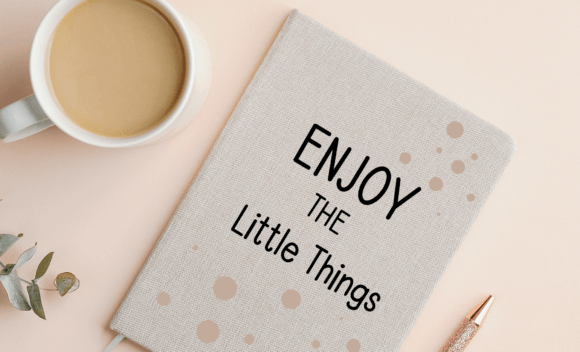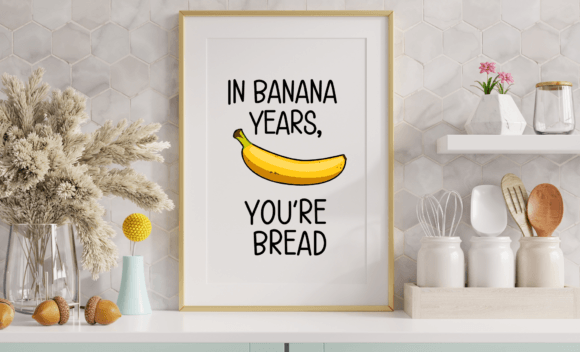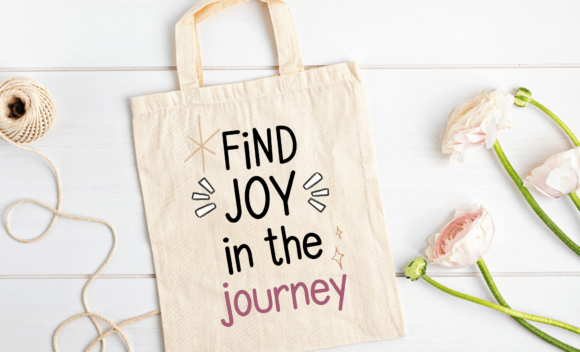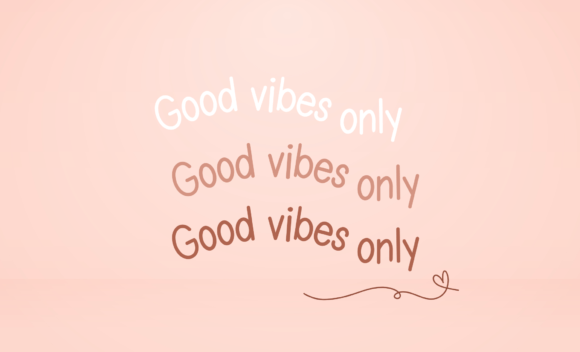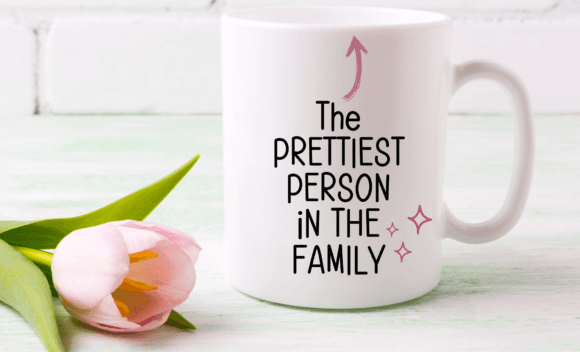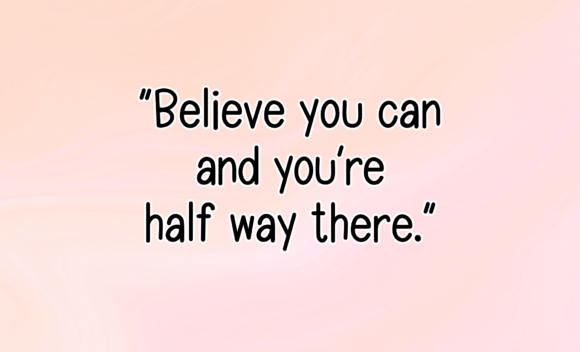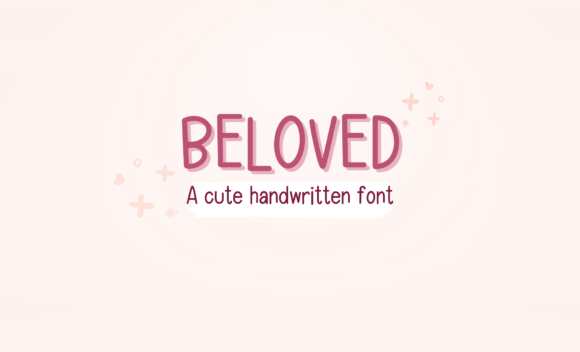
Introducing Beloved Font: The Ultimate Handwritten Script for Creative Projects
Are you a designer, crafter, or DIY enthusiast looking for a font that can add a personal touch to your creative projects? Look no further than Beloved Font, a cute and quirky handwritten script that is sure to delight. With its incredibly friendly feel, Beloved Font is the perfect choice for anyone looking to turn their creative ideas into true works of art.
The Characteristics of Beloved Font
Beloved Font is a handwritten script that boasts a unique and charming personality. Its letters are carefully crafted to resemble the imperfections of handwritten text, giving it a warm and approachable feel. The font is highly legible, making it suitable for a wide range of applications, from social media graphics to DIY project instructions.
Perfect for Instagram and Social Media Graphics
In today’s digital age, having a strong online presence is crucial for designers, crafters, and small business owners. Beloved Font is an excellent choice for creating engaging social media graphics, including Instagram posts, Facebook updates, and Twitter headers. Its playful and friendly vibe is sure to resonate with your audience and help you build a loyal following.
Ideal for DIY Projects and Crafting
Beloved Font is not just limited to digital applications. It’s also perfect for DIY projects, such as crafting, scrapbooking, and woodworking. Whether you’re creating handmade cards, gift tags, or signs, this font will add a personal touch to your projects and make them stand out. The font’s handwritten feel will also help to create a sense of nostalgia and warmth, making your projects even more special.
Key Features of Beloved Font
- Cute and quirky handwritten script: Beloved Font boasts a unique and charming personality that will add a personal touch to your creative projects.
- Incredibly friendly feel: The font’s warm and approachable feel makes it perfect for creating engaging social media graphics and DIY projects.
- Highly legible: Beloved Font is easy to read, making it suitable for a wide range of applications, from social media graphics to DIY project instructions.
- Perfect for Instagram and social media graphics: The font’s playful and friendly vibe is sure to resonate with your audience and help you build a loyal following.
- Ideal for DIY projects and crafting: Beloved Font will add a personal touch to your handmade projects and make them stand out.
How to Use Beloved Font in Your Creative Projects
Using Beloved Font in your creative projects is easy. Here are a few tips to get you started:
- Pair it with other fonts: Beloved Font pairs well with other fonts, such as sans-serif fonts or serif fonts. Experiment with different combinations to create a unique look.
- Use it for headings and titles: Beloved Font is perfect for headings and titles, where its playful and friendly vibe can shine.
- Add it to your social media graphics: Use Beloved Font to create engaging social media graphics, including Instagram posts, Facebook updates, and Twitter headers.
- Use it for DIY project instructions: Beloved Font is also suitable for DIY project instructions, where its clear and legible text can help guide your audience.
Beloved Font is a versatile and charming handwritten script that is perfect for designers, crafters, and DIY enthusiasts. Its incredibly friendly feel and highly legible text make it suitable for a wide range of applications, from social media graphics to DIY project instructions. Whether you’re looking to add a personal touch to your creative projects or create engaging social media graphics, Beloved Font is the ultimate choice.